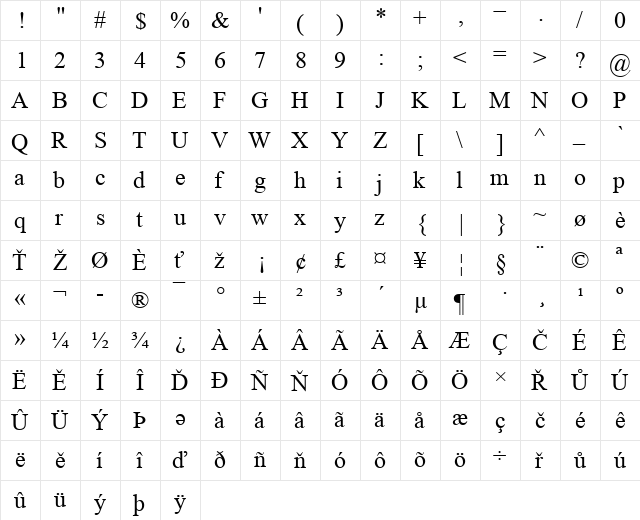
Times NR Czech Normᬮ
Design Context for Times NR Czech Typeface
Times NR Czech takes a measured approach to typography — its balanced proportions and neutral character make it a reliable workhorse for both digital and print work.
Pro Tip: Pair Times NR Czech with a font of contrasting weight or personality to build a more expressive typographic hierarchy.